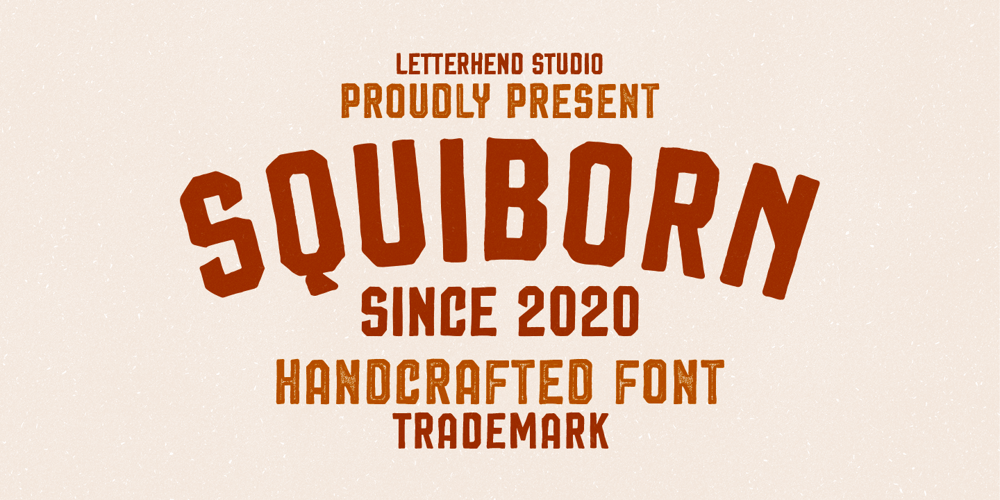
Squiborn Font Family was designed by Hendry Juanda and published by Letterhend. Squiborn contains 2 styles and family package options. Squiborn is a hand drawn display font with bold and strong feel. This font perfectly made to be applied especially in logo, and the other various formal forms such as invitations, labels, magazines, books, greeting / wedding cards, packaging, fashion, make up, stationery, novels, labels or any type of advertising purpose.We highly recommend using a program that supports OpenType features and Glyphs panels like many of Adobe apps and Corel Draw, so you can see and access all Glyph variations.